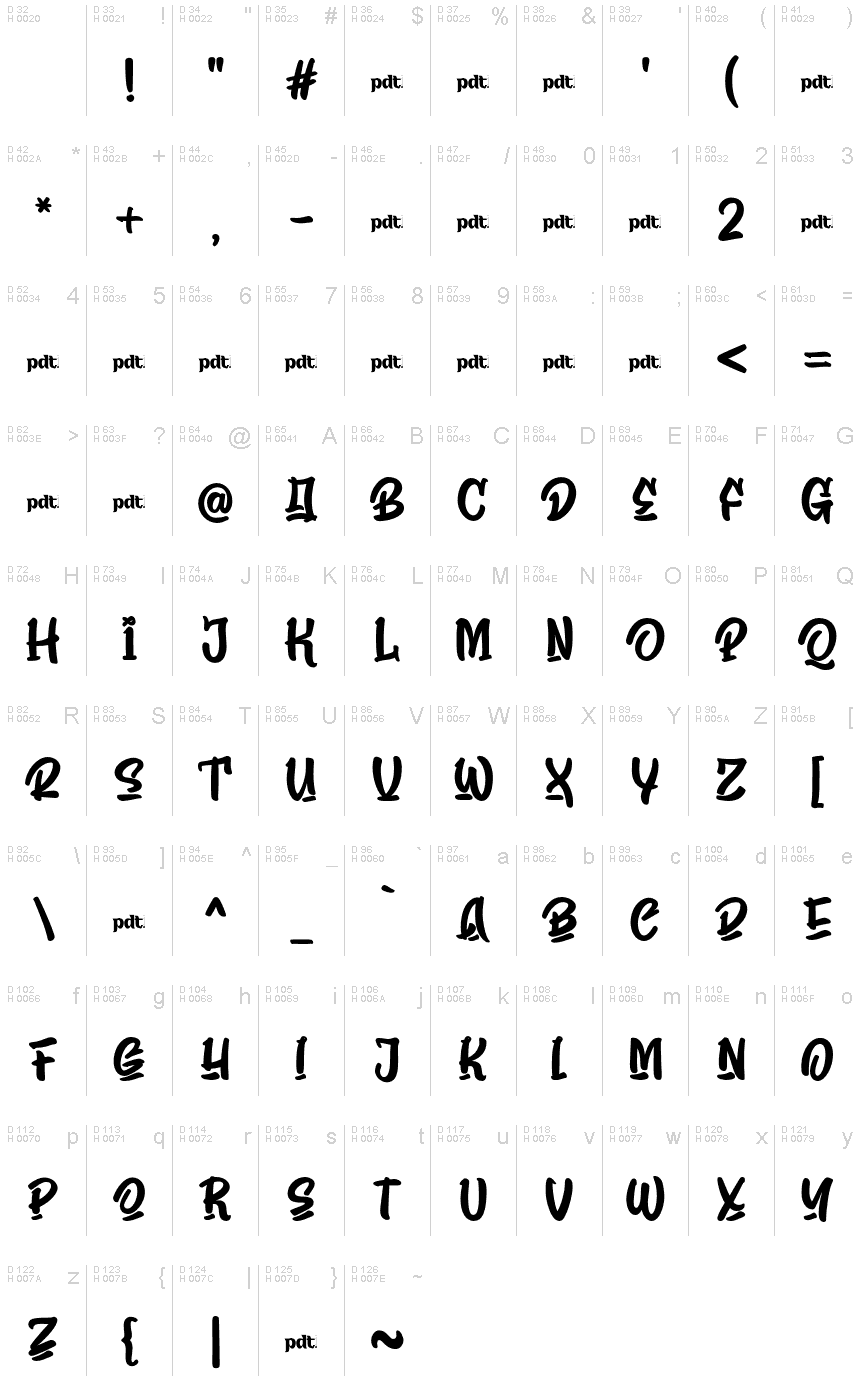
KERASIHTRIAL-Regular
KERASIH, designed by the talented Rozi, is a captivating graffiti font that exudes rebellious energy. With its semi-bold weight and expressive style, KERASIH adds an urban edge to any creative project. Perfect for street art campaigns, music album covers, and fashion editorials seeking to make a bold statement. Let your imagination run wild as KERASIH breathes life into logos, posters, and social media graphics. This versatile font ensures that your designs stand out from the crowd with its distinctive and dynamic typography. Unleash the power of KERASIH and embrace the graffiti revolution in your next project.